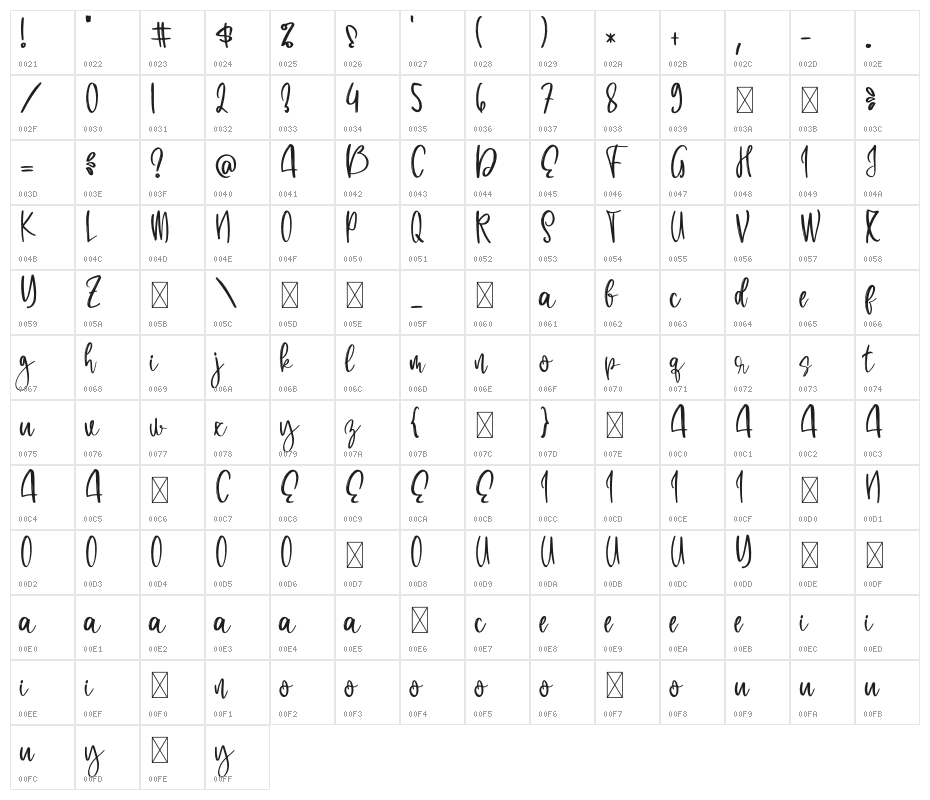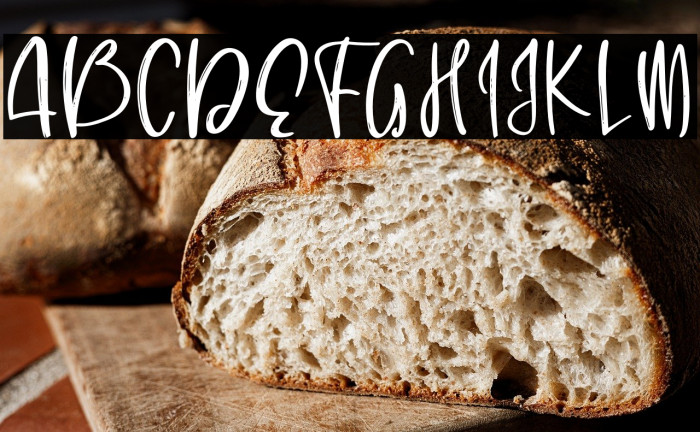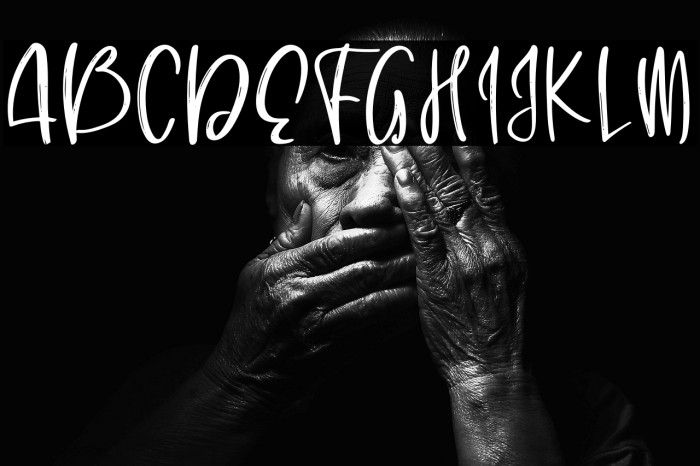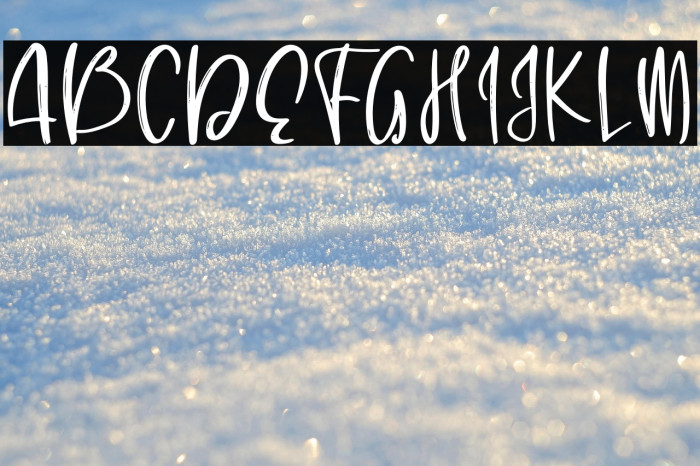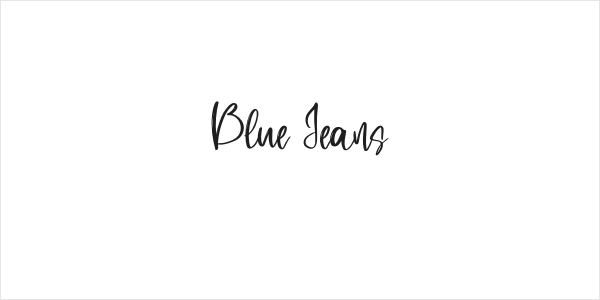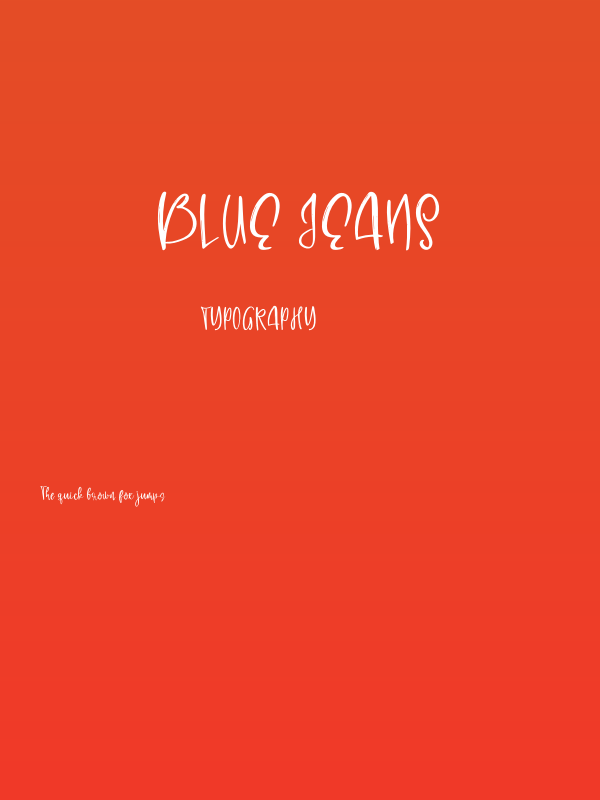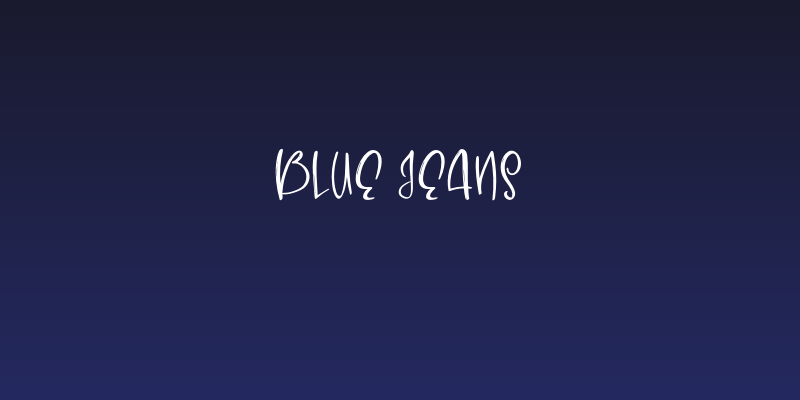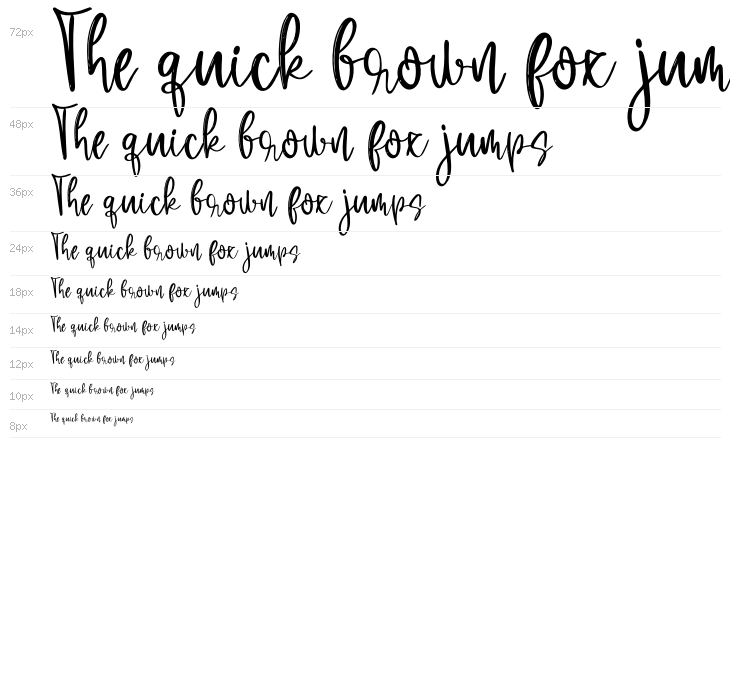
Blue Jeans Font
Blue Jeans Description
This font exudes a playful and casual vibe, characterized by its handwritten style with a slight slant. The letters are connected in a fluid manner, giving it a natural and organic feel. The strokes vary in thickness, adding a dynamic and lively touch to the text. The uppercase letters are bold and prominent, while the lowercase letters maintain a consistent flow. Numbers and special characters are crafted with the same playful essence, making them stand out. This font is perfect for projects that require a personal and informal touch, such as invitations, greeting cards, or social media graphics.